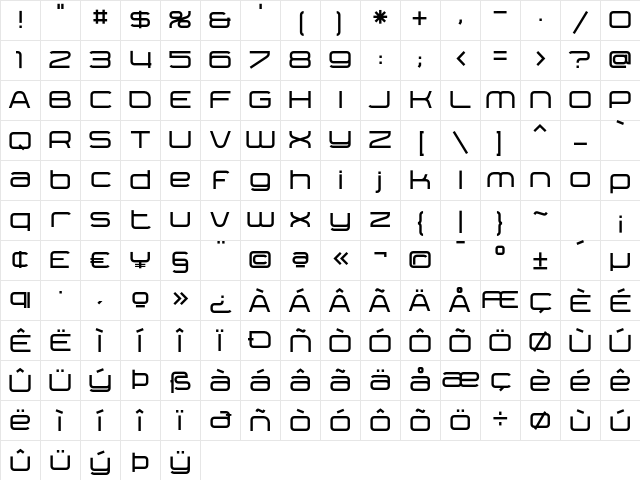
Yumi Bold Free Font
Yumi Bold
Foundry: Neil Summerour (Positype)
Designer: Neil Summerour (Positype)
Design Context for Yumi
Yumi is a composed and adaptable typeface that performs quietly and consistently across a wide range of design contexts. Its bold stroke weight gives it real presence on the page.